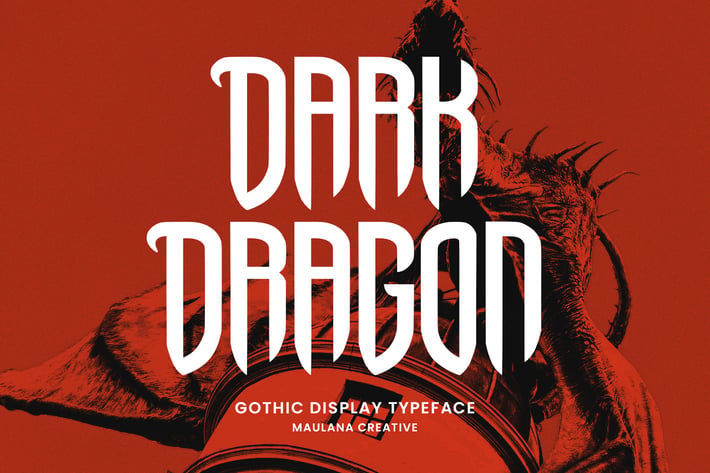
Dark Dragon Gothic Display Typeface
Dark Dragon gothic display typeface. Bold stroke, fun character with a bit of ligatures and alternates. To give you an extra creative work. Dark Dragon gothic display typeface support multilingual more than 100+ language. This font is good for logo design, Social media, Movie Titles, Books Titles, a short text even a long text letter and good for your secondary text font with script or serif. Make a stunning work with Dark Dragon gothic display typeface.